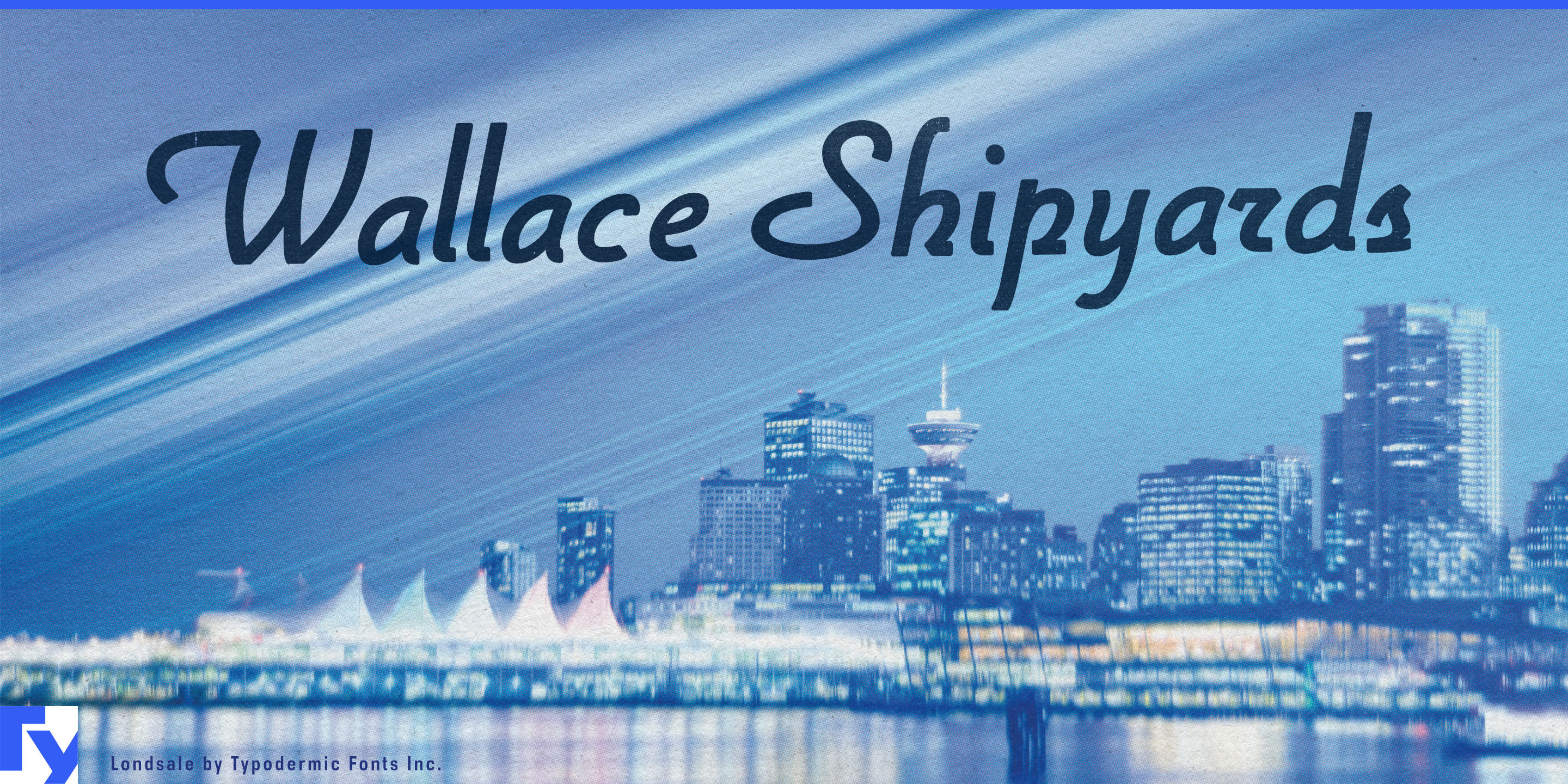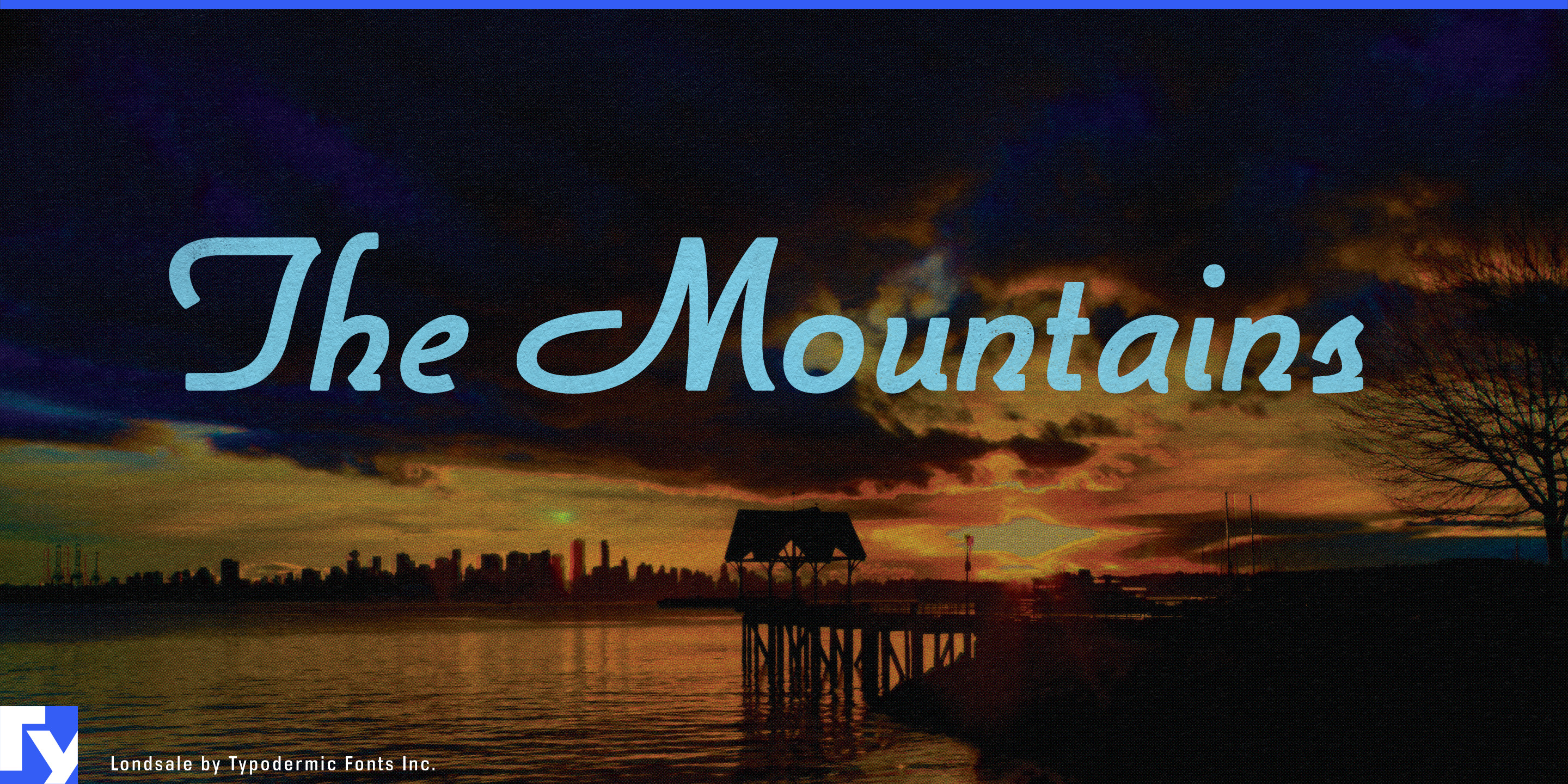
Lonsdale
Lonsdale began with a practical contradiction. It was developed during work on the Cinecav closed-caption family, where the goal was to create a script that could coexist with a technical typographic system. The experiment proved too expressive for captioning: the lowercase was unconventional for accessibility-critical reading, while the wide, decorative capitals demanded more space and attention than the job allowed. Those same qualities became the reason to keep it.
The result is a script that behaves more like designed lettering than handwriting. Its letters remain disconnected, the curves are controlled, and the capitals can dominate short names without making the rest of the word feel casual or improvised. That gives Lonsdale a useful role inside contemporary identity systems: it can provide the signature element while a more neutral companion face handles navigation, specifications, addresses, and supporting copy.
Place branding is a particularly natural fit. Mixed-use developments, waterfront districts, premium residential projects, destination hotels, marinas, and resort properties often need a memorable name that can sit comfortably beside modern architecture. Lonsdale can appear on entrance monuments, building façades, leasing campaigns, development hoardings, lobby graphics, and property brochures without forcing the entire identity into a script style.
The same principle works for hospitality sub-brands. A hotel restaurant, rooftop bar, lounge, spa, or private club may need an identity of its own while remaining related to the larger property. Lonsdale can distinguish the named experience on signage, menus, glass graphics, amenities, and campaign material while the surrounding system remains restrained.
Product and vehicle naming offer another strong use. Yacht models, motorcycles, e-bikes, recreational vehicles, limited product series, and other premium transport products often need a name that feels more individual than a model code but less sentimental than conventional handwriting. Lonsdale can turn that name into a badge, decal, embossed mark, launch graphic, or display headline while technical information remains in a more systematic face.
Passenger transport and destination services can use the same distinction. Ferry operators, scenic rail services, cruise brands, and premium mobility companies frequently have expressive route names, vessel names, lounges, or onboard venues within otherwise highly functional identities. Lonsdale can supply that named layer without being asked to handle timetables, wayfinding, or dense operational information.
Lonsdale works best as a designed signature: the name of a place, vehicle, property, venue, or experience that needs to feel distinctive while remaining compatible with the architecture, products, and systems around it.